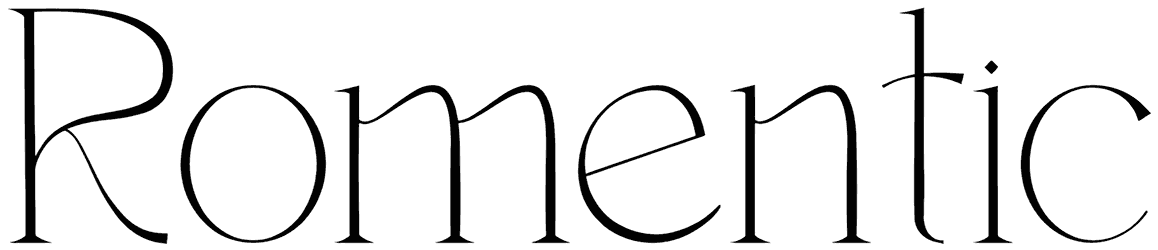
Romentic Font
Designed byMuksal Creative
Romentic font is one of the unique modern fonts. You can not see the creativity created in the characters in other serif fonts. In addition, a subtle curved line can make your brand look terrific if used in the logotype, fashion magazines, and covers.